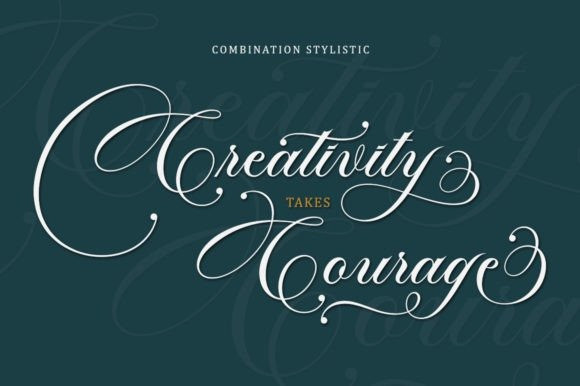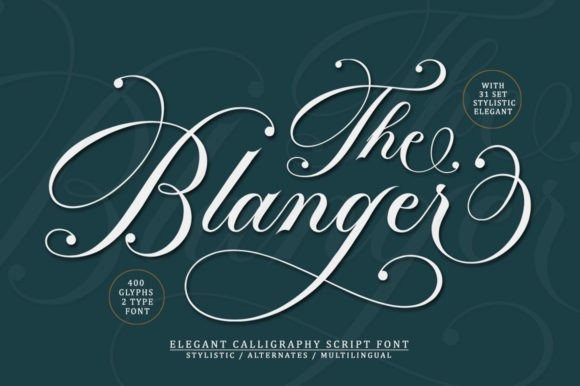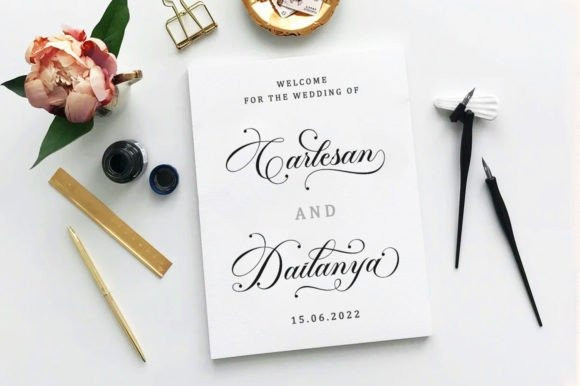
The Blanger Font
The Blanger Font is one of the elegant script fonts that comes with a very beautiful character change, a kind of classic copper decorative script with a modern twist, designed with great detail to bring out an elegant style.
The Blanger Script is interesting because the typeface is pleasing to the eye, clean, feminine, sensual, glamorous, simple, and very easy to read, thanks to the many luxurious letter connections. Its classic style is very suitable to be applied in various formal forms such as invitations, labels, restaurant menus, logos, fashion, make-up, stationery, novels, magazines, books, greeting/wedding cards, packaging, labels or all kinds of advertisements. destination.